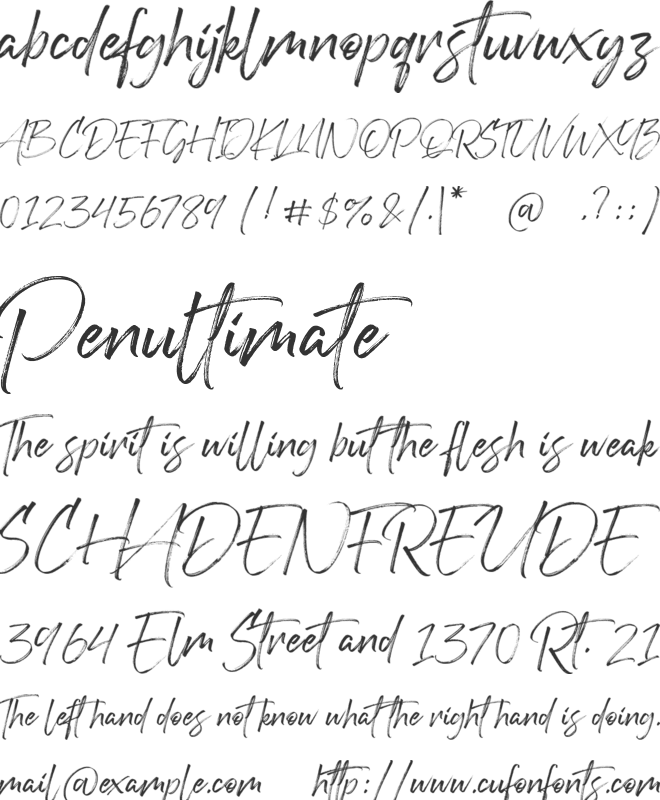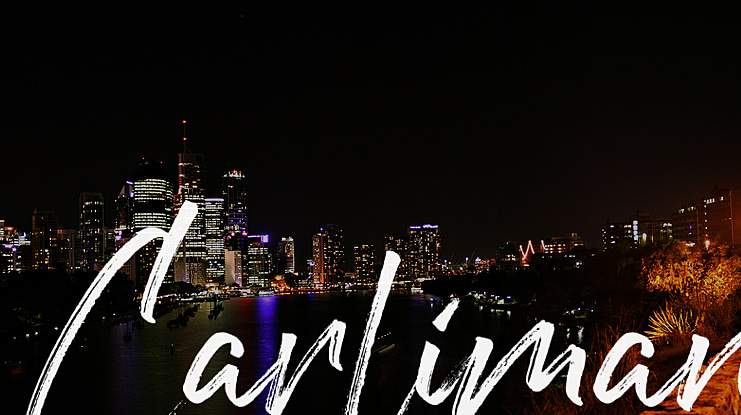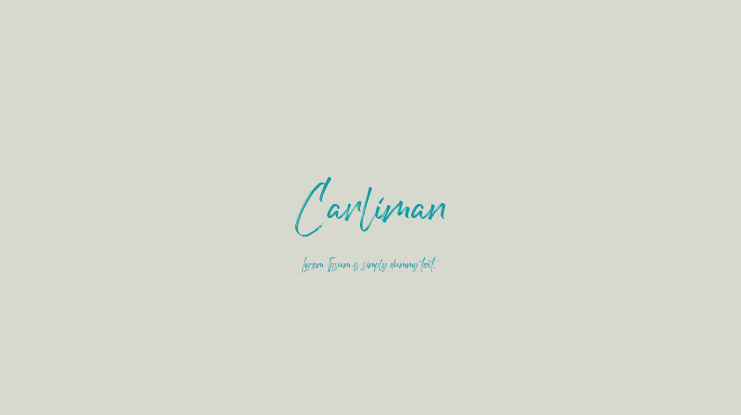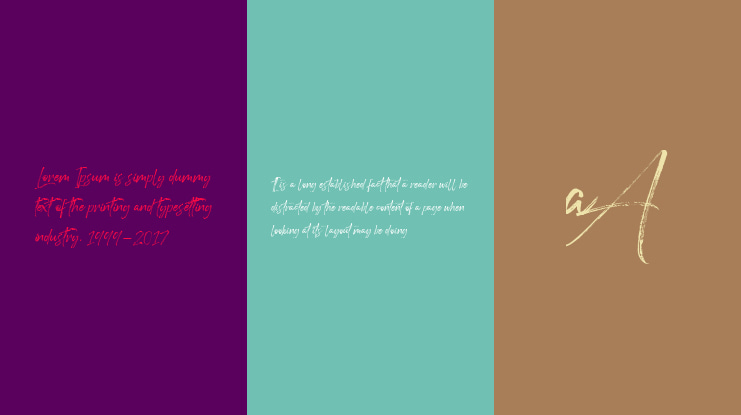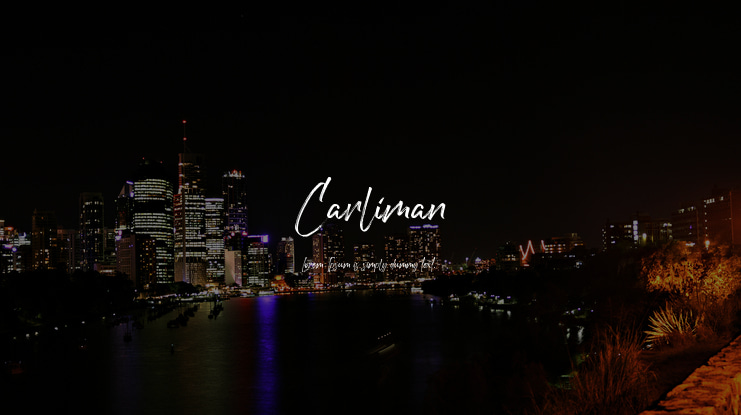
Carliman Font
Proudly Present, Carliman Font.
Carliman is a Handbrushed Calligraphy font.
Carliman is perfect for product packaging, branding project, megazine, social media, wedding, or just used to express words above the background.
Carliman font preview